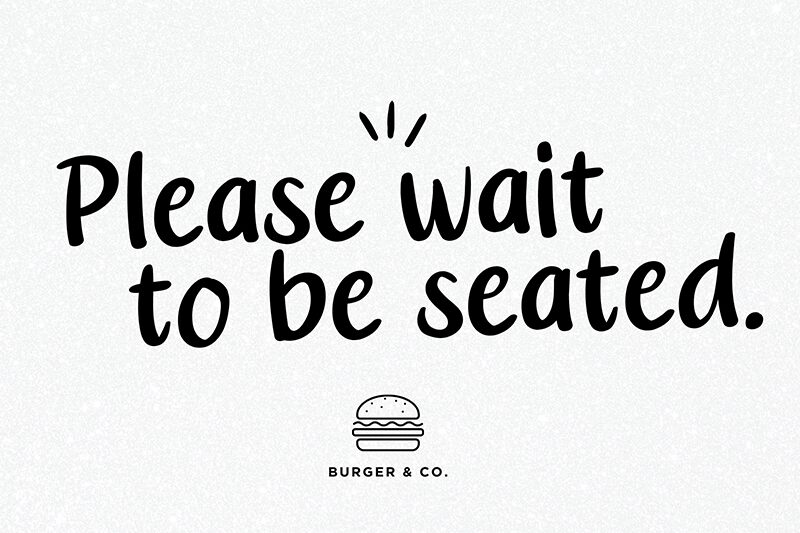
Zus Latte
Zus Latte font is an energetic handwritten style font by Tigadestd with a friendly vibe and casual feel. Its organic flow and expressive appearance make it stand out, inviting you to use it in projects year-round. Zus Latte includes the alphabet, numbers, symbols, and accents so designers can put together texts with an artistic flair.
Use it for posters, cards (Christmas cards/Valentine’s day cards), themed invitations, mugs design, notebook covers. Display it on small or large screens like sports apps or inspirational websites; the font will last through time with its lovely display!